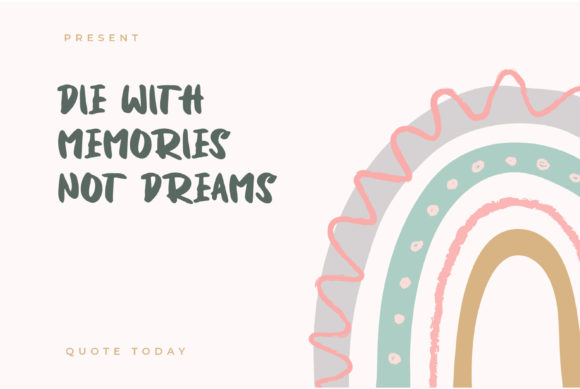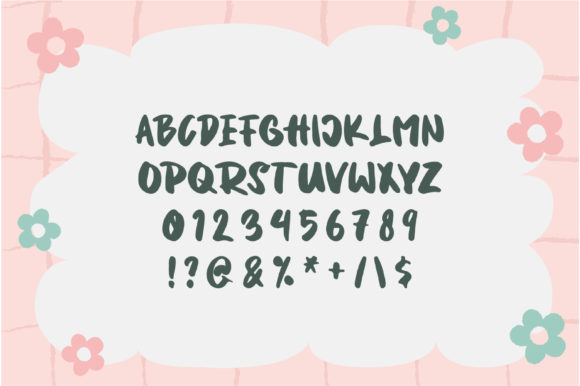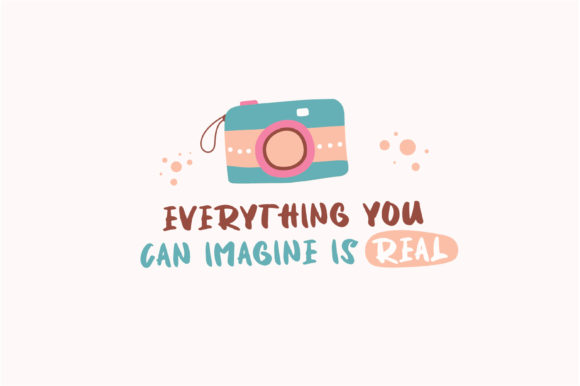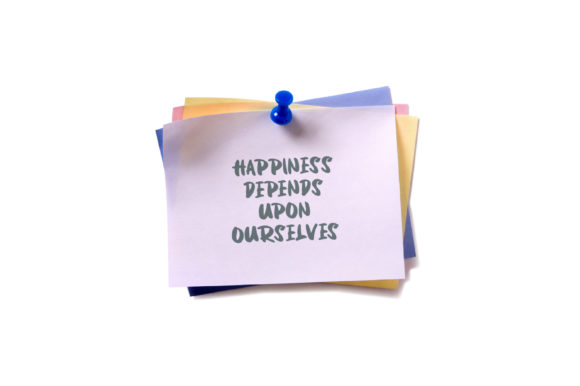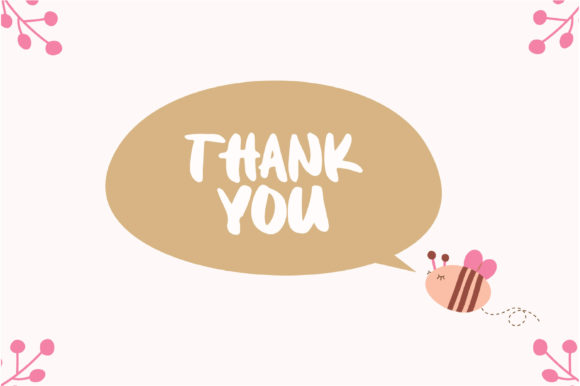
Introducing Harley Font: The Ultimate Display Font for Creative Projects
Are you a designer, crafter, or DIY enthusiast looking for a fun and playful font to add a touch of personality to your projects? Look no further than Harley Font! This delightful display font is perfect for kids’ designs, quotes, home decor, party invites, blog headers, product branding, packaging, t-shirts, posters, and absolutely any other design and craft project you can imagine.
What Makes Harley Font So Special?
Harley Font is a unique and eye-catching display font that is sure to make your designs stand out from the crowd. Its fun and playful vibe makes it an ideal choice for projects that require a touch of whimsy and personality. Whether you’re designing for kids or adults, Harley Font is sure to bring a smile to their faces.
Use Harley Font for a Variety of Projects
The versatility of Harley Font is one of its best features. You can use it for a wide range of projects, including:
- Kids’ designs: Create fun and playful designs for kids’ parties, nursery decor, or educational materials.
- Quotes: Add a touch of personality to your inspirational quotes, posters, or social media graphics.
- Home decor: Use Harley Font to create beautiful and unique home decor designs, such as wall art, signs, or stencils.
- Party invites: Make your party invitations stand out with Harley Font’s playful and festive vibe.
- Blog headers: Add a touch of personality to your blog headers and make your content more engaging.
- Product branding: Use Harley Font to create unique and eye-catching branding for your products, packaging, or labels.
- T-shirts and apparel: Create fun and playful designs for t-shirts, hoodies, or other apparel.
- Posters and prints: Use Harley Font to create stunning posters, prints, or artwork.
Why Designers and Crafters Love Harley Font
Harley Font has become a favorite among designers and crafters due to its unique features and versatility. Here are just a few reasons why:
- Easy to read: Despite its playful vibe, Harley Font is easy to read and understand, making it perfect for designs that require clear communication.
- Highly customizable: You can use Harley Font in a variety of colors, sizes, and styles to match your design needs.
- Unique and eye-catching: Harley Font’s playful and whimsical design makes it stand out from more traditional fonts.
Tips for Using Harley Font Effectively
To get the most out of Harley Font, here are a few tips to keep in mind:
- Use it sparingly: While Harley Font is fun and playful, it can be overwhelming if used excessively. Use it sparingly to add emphasis and personality to your designs.
- Pair it with complementary fonts: Pair Harley Font with complementary fonts to create visual interest and hierarchy in your designs.
- Experiment with colors and textures: Don’t be afraid to experiment with different colors and textures to add depth and interest to your designs.
Harley Font is a fun and playful display font that is perfect for designers, crafters, and DIY enthusiasts looking to add a touch of personality to their projects. Its versatility, ease of use, and unique design make it an ideal choice for a wide range of projects, from kids’ designs to product branding. With Harley Font, you can create stunning and eye-catching designs that are sure to delight your audience.